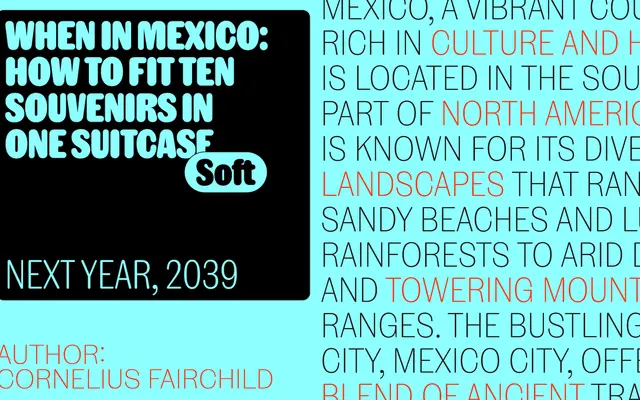
NaN Rage Soft
NaN · Hugues Gentile, Fanny Hamelin, Fadhl Haqq, Léon Hugues, Jean-Baptiste Morizot, Luke Prowse, Florian Runge, Jolana Sýkorová · 2024
A rounded sans with hemispheric stem endings and four widths, designed as the softest member of NaN's Rage Typographic Universe.
Part of a wider type system, Rage Soft extends the Rage family into rounded territory by applying fully hemispheric terminal cuts to a subtly contrasted monolinear structure. Nine weights across Standard, Narrow and XCondensed widths give it genuine versatility from tightly-set display headlines down to modest text sizes. The rounded forms avoid the goofy register of many rounded sans faces by retaining some of the curve tension found in its sibling cuts.
A subtly contrasted monolinear sans with fully hemispheric stem endings, placing it firmly in the rounded sans category. The page explicitly positions it between Caslon's 1836 rounded sans and Arial Rounded.